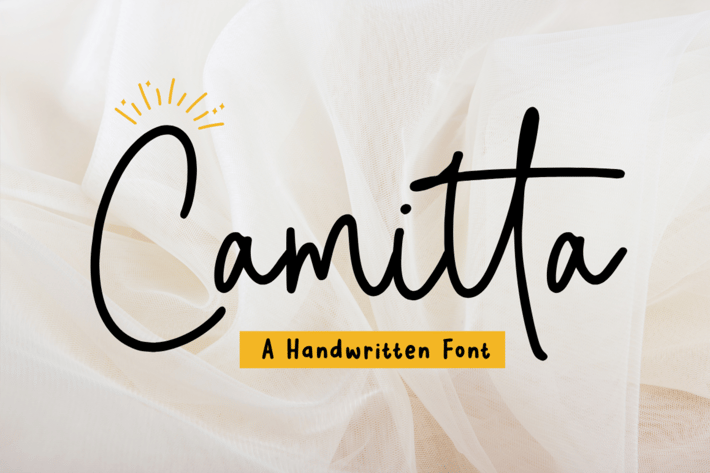
Camitta - Monoline Script Font
Introducing Camitta, a lovely handwritten script font that embodies romance and charm. With its graceful strokes and delicate curves, this font captures the essence of handwritten elegance. Perfect for projects that require a touch of romance and sophistication, such as wedding invitations, love letters, or romantic quotes, Camitta infuses your designs with a delightful and intimate feel, creating a connection that feels truly genuine and heartfelt.